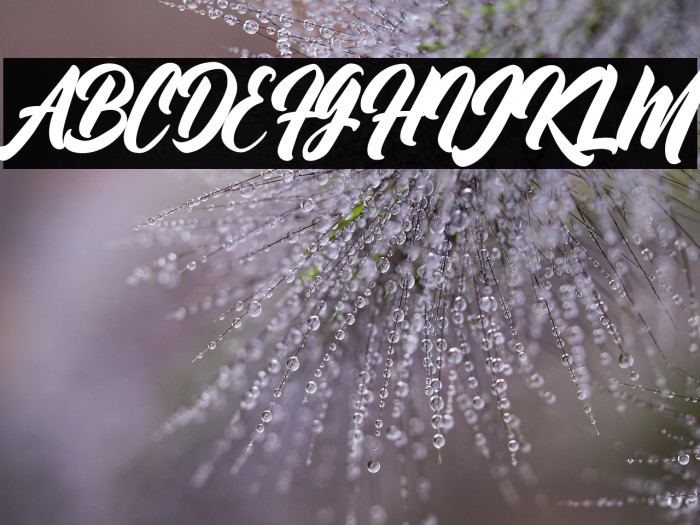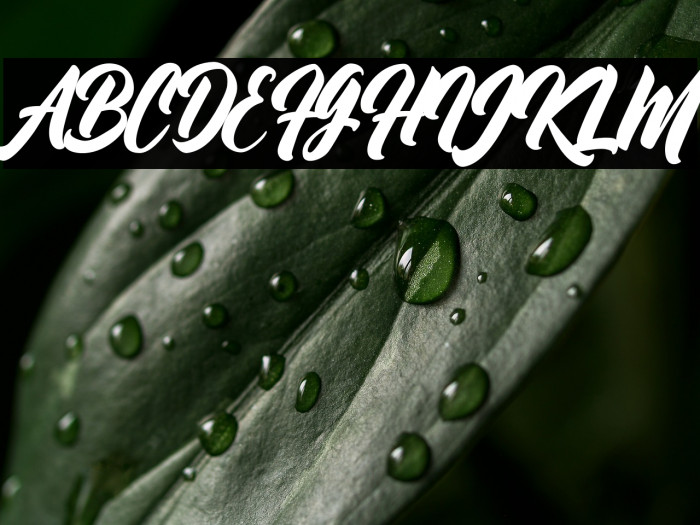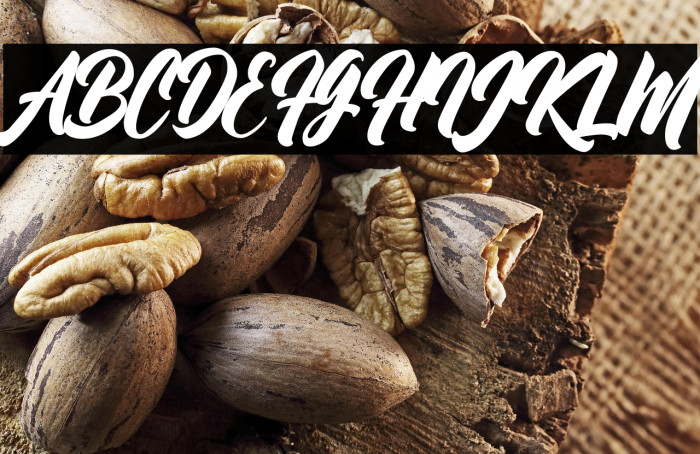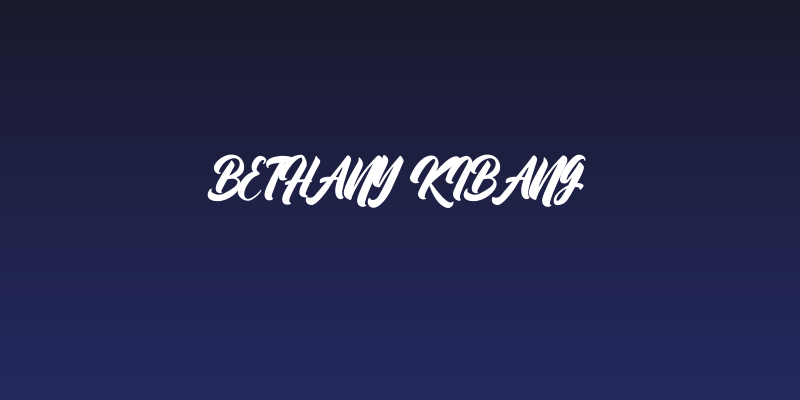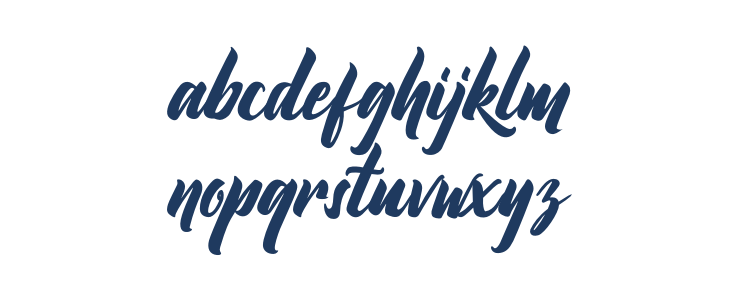
Bethany Kibang Font
Bethany Kibang Description
This font features a bold, flowing script style that exudes elegance and dynamism. The characters are interconnected, creating a seamless and fluid appearance. The strokes are thick and consistent, providing a strong visual impact. The uppercase letters are particularly ornate, with sweeping curves and flourishes that add a touch of sophistication. The lowercase letters maintain a cohesive style, complementing the uppercase with their rounded forms and smooth transitions. The numerals and special characters follow the same aesthetic, ensuring uniformity across all elements. This font is ideal for projects that require a touch of elegance and flair.